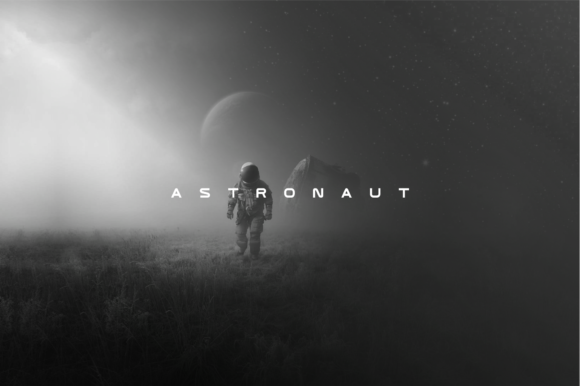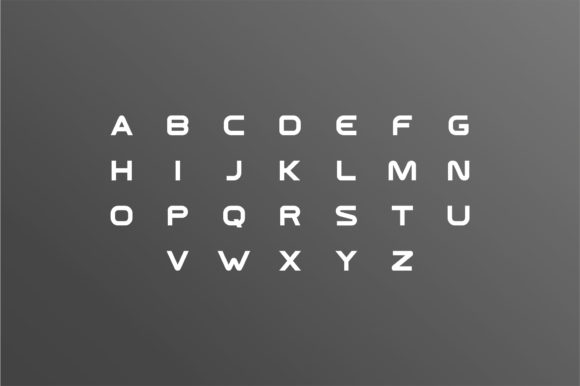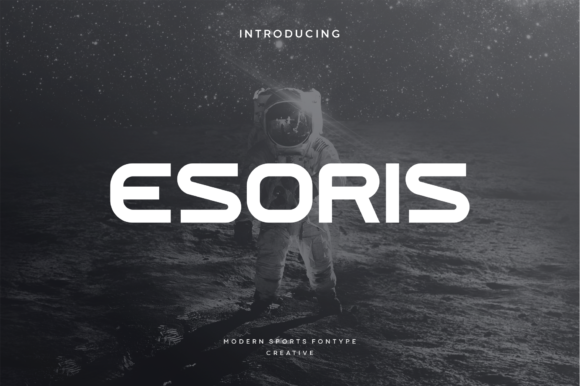
Introducing Esoris Font: The Perfect Blend of Modernity and Friendliness
In the world of typography, fonts play a crucial role in conveying the tone and personality of a brand or design. For designers and crafters, finding the right font can make all the difference in creating a visually appealing and effective design. If you’re on the hunt for a unique and friendly font, look no further than Esoris Font. In this article, we’ll dive into the features and benefits of Esoris, and explore how it can elevate your designs.
What is Esoris Font?
Esoris is an all-caps display font that boasts a distinctive character with gentle curves, giving it a softer and more approachable feel. Unlike traditional bold fonts, Esoris strikes a balance between modernity and friendliness, making it perfect for a wide range of design applications. Whether you’re working on a website, business card, or any other project that requires a touch of personality, Esoris is an excellent choice.
Key Features of Esoris Font
- All-caps design: Esoris is an all-caps font, making it perfect for headlines, titles, and emphasis.
- Gentle curves: The font features subtle curves that add a touch of warmth and approachability.
- Unique character: Esoris has a distinctive character that sets it apart from other fonts.
- Display font: Designed specifically for display purposes, Esoris is ideal for large-format designs.
Benefits of Using Esoris Font
So, why choose Esoris Font for your designs? Here are just a few benefits:
- Stand out from the crowd: Esoris’s unique character ensures your designs won’t get lost in the sea of sameness.
- Add a touch of personality: The font’s friendly feel helps to create an emotional connection with your audience.
- Versatile: Esoris can be used for a wide range of design applications, from web designs to print materials.
- Easy to read: Despite its unique character, Esoris remains highly legible, even at smaller sizes.
Design Applications for Esoris Font
Esoris Font is an incredibly versatile font that can be used in various design applications, including:
- Web designs: Use Esoris to create stunning website headers, titles, and emphasis.
- Business cards: Add a touch of personality to your business cards with Esoris.
- Branding and logos: Esoris can help create a unique and memorable brand identity.
- Print materials: Use Esoris for brochures, flyers, posters, and any other print materials that require a bold and friendly font.
Tips for Using Esoris Font Effectively
To get the most out of Esoris Font, here are some tips to keep in mind:
- Use it sparingly: Esoris is a display font, so use it sparingly to create emphasis and visual interest.
- Pair it with a complementary font: Combine Esoris with a simpler font to create visual contrast and hierarchy.
- Experiment with colors and textures: Esoris looks great with bold colors and textures, so don’t be afraid to experiment.
In conclusion, Esoris Font is an exceptional choice for designers and crafters looking to add a touch of personality and uniqueness to their designs. With its gentle curves, all-caps design, and friendly feel, Esoris is perfect for a wide range of design applications. Whether you’re working on a website, business card, or print materials, Esoris is sure to make your designs stand out from the crowd.